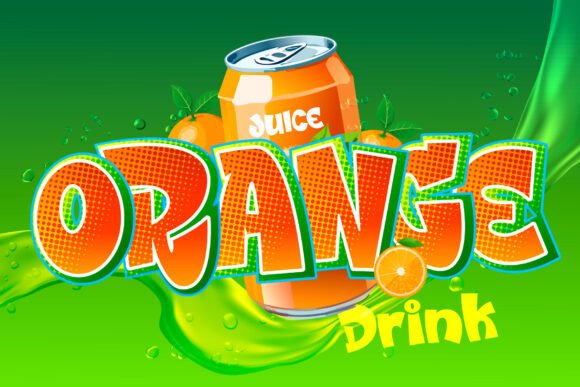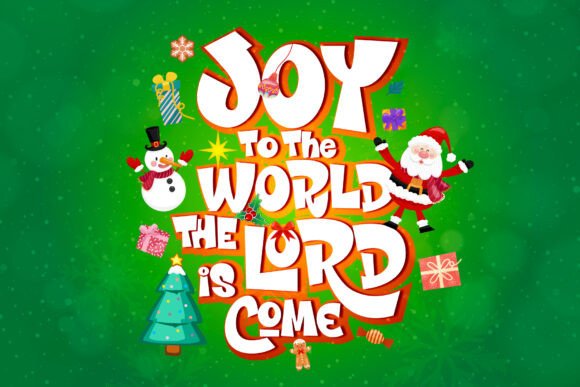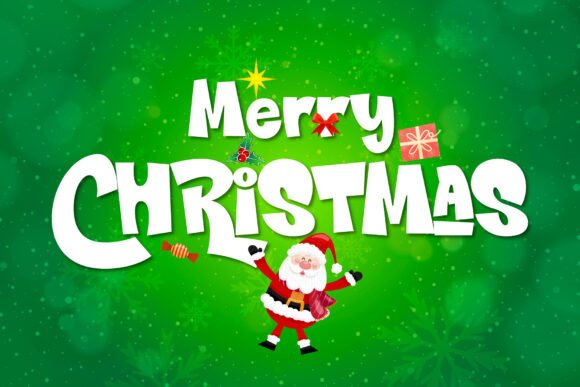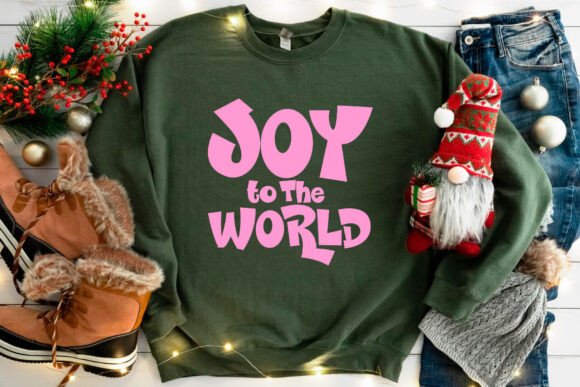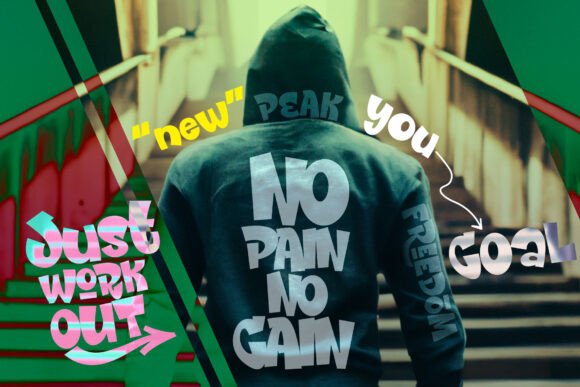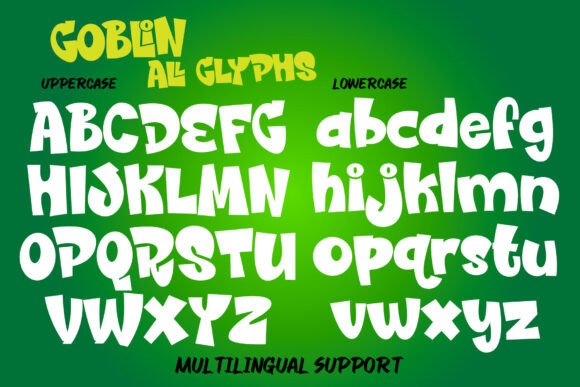
Unleash the Charm of Your Creative Projects with Goblin Font
Have you ever been in the middle of a design project, pouring your heart and soul into it, only to hit a creative roadblock because you just can’t seem to find the right font? I certainly have. It was a typical Wednesday afternoon when I was working on a quirky t-shirt design for a client who wanted something that would make their brand stand out in a crowded market. As I scrolled through font after font, nothing seemed quite right – until I stumbled upon Goblin.
This extraordinarily distinctive and playful font has been a game-changer for my designs, and I’m excited to share its magic with you. Imbued with an expertly developed design, Goblin promises to inject life into your creative endeavors, transforming even the simplest ideas into standout pieces.
An Honest Review of Goblin Font
- ✨ Unique and Playful Design: Goblin’s design is unlike any other font I’ve come across. Its playful and whimsical nature makes it perfect for designs that need a bit of character.
- ✅ Versatility: Whether you’re working on t-shirt artistry, athletic gear branding, captivating logos, attention-grabbing advertisements, or product packaging, Goblin fits right in.
- 💡 Inspires Creativity: This font has a way of sparking creativity. It’s amazing how a simple text can turn into a visually appealing piece with Goblin.
While Goblin has won my heart, it’s not without its quirks. For instance:
- 🤔 Legibility at Small Sizes: Like many decorative fonts, Goblin can get a bit tricky to read at very small sizes. It’s best used for headlines or medium to large text.
- ⚠️ Limited Formality: Given its playful nature, Goblin might not be the best fit for projects requiring a formal or traditional look.
One of the exciting aspects of Goblin is its support for OpenType features. This means you can access a variety of glyphs and stylistic alternates to add more personality to your text. For example:
The Backstory of Goblin Font
While the actual origins of Goblin might be shrouded in mystery, it’s easy to imagine a designer, frustrated with the lack of playful fonts available, embarking on a mission to create something entirely new. Perhaps late nights, copious amounts of coffee, and a passion for whimsy led to the birth of Goblin. Whatever the story, it’s clear that Goblin was designed to bring joy and creativity to designers and hobbyists alike.
Q: What makes Goblin font unique?
A: Goblin’s unique and playful design sets it apart. It’s specifically crafted to add a whimsical touch to creative projects.
Q: Is Goblin suitable for body text?
A: Due to its decorative nature, Goblin is best used for headlines or medium to large text. It may not be suitable for body text, especially at small sizes.